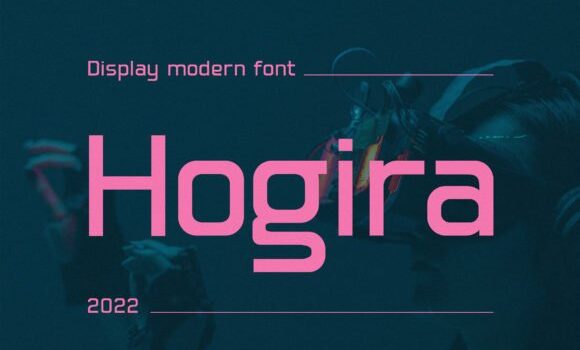
hogira
Hogira Font – Free Download Introduction to Hogira Font Inspired by technological developments, Hogira is a future-looking display font, Hogira is very suitable for use in writing titles, making text-based logos, websites, and modern design types that are related to